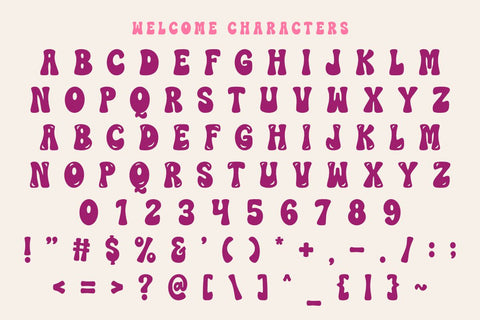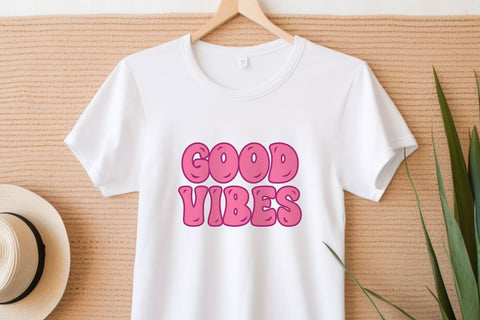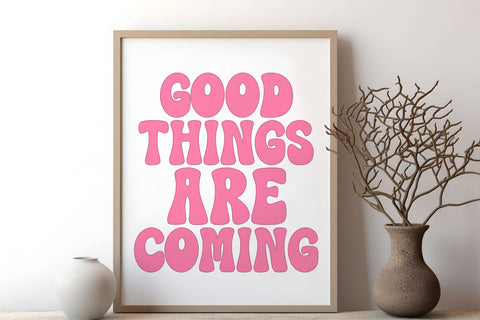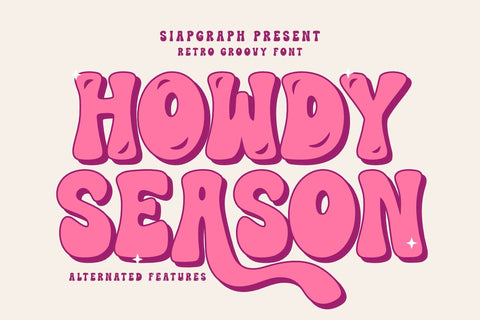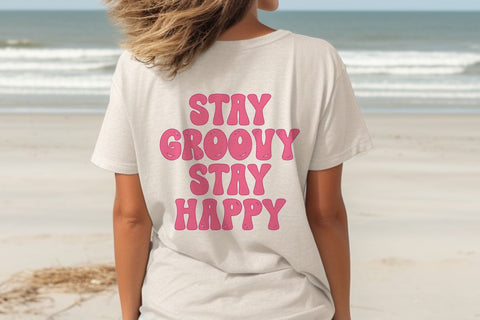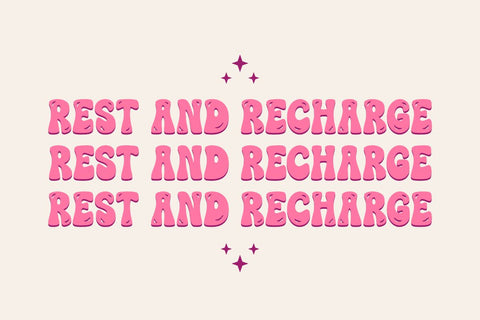
Howdy Season - Fun Retro Groovy Font
Howdy Season is a fun retro groovy font with a bubbly, playful style. Its bold curves, chunky letters, and alternated features give a nostalgic 70s and 80s vibe, perfect for posters, album covers, branding, children’s designs, quotes, packaging, and social media graphics. The joyful look makes it a great choice for projects that need a cheerful and eye-catching retro aesthetic.